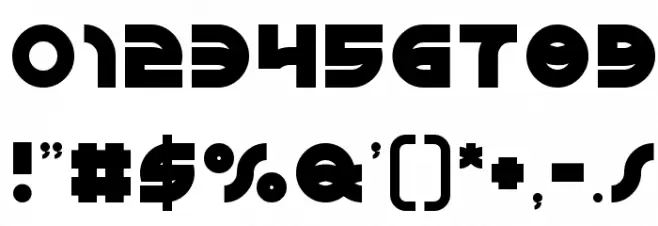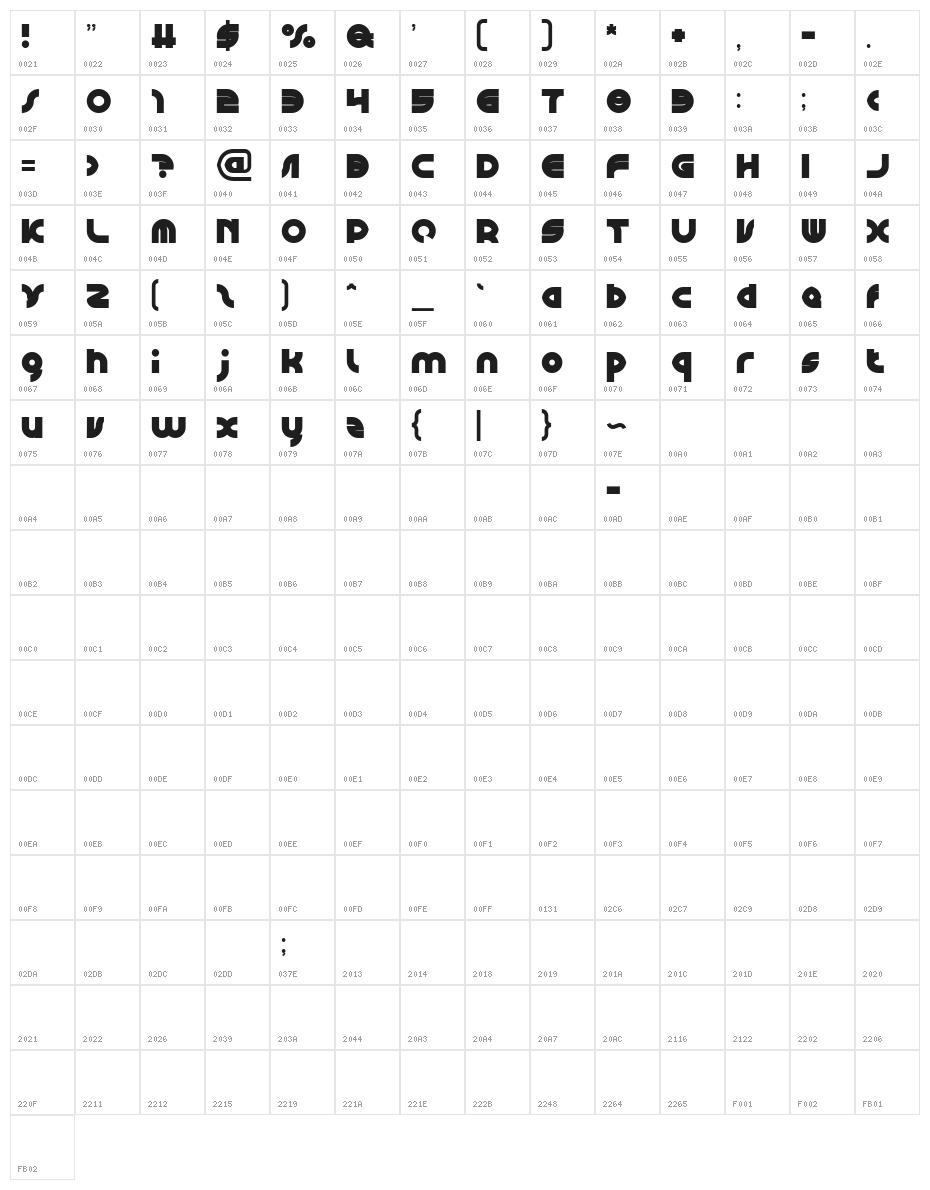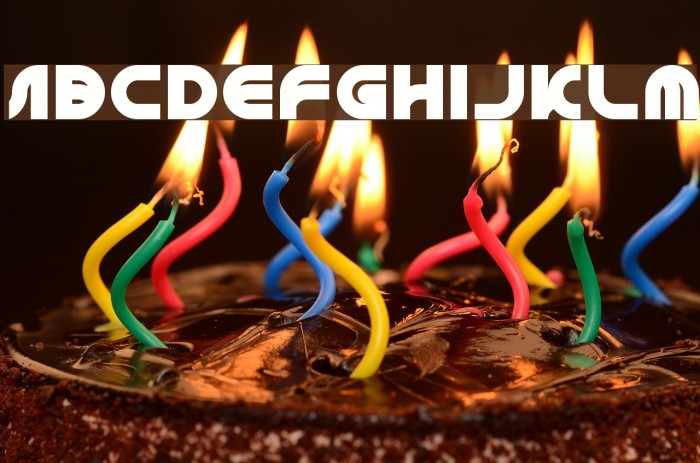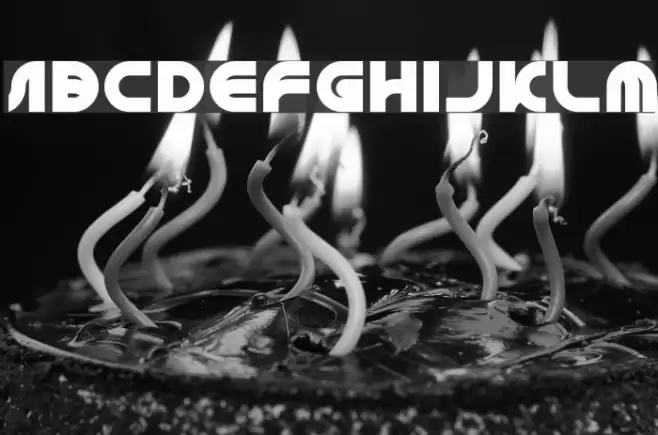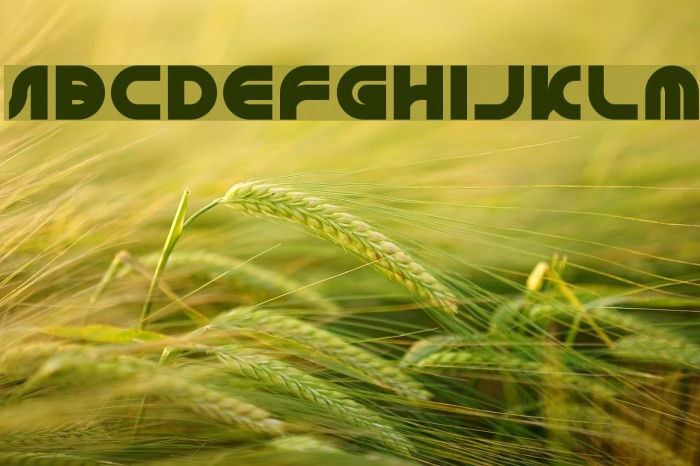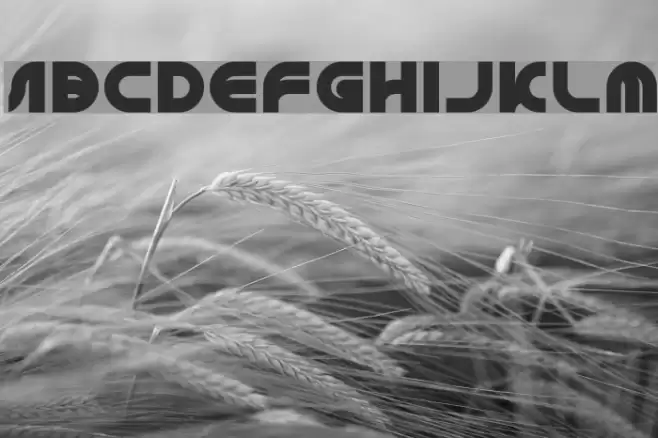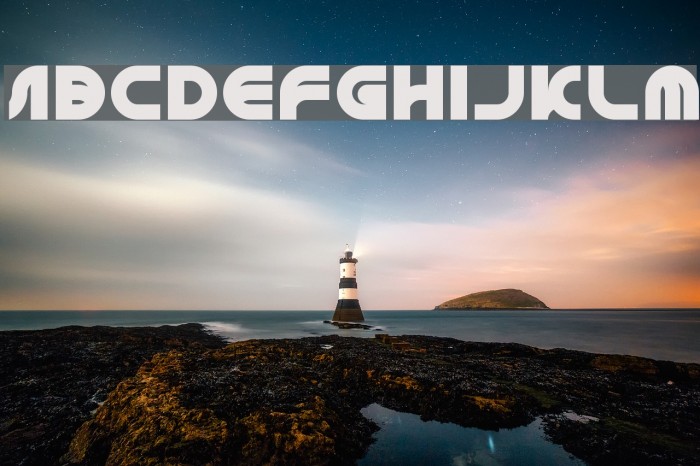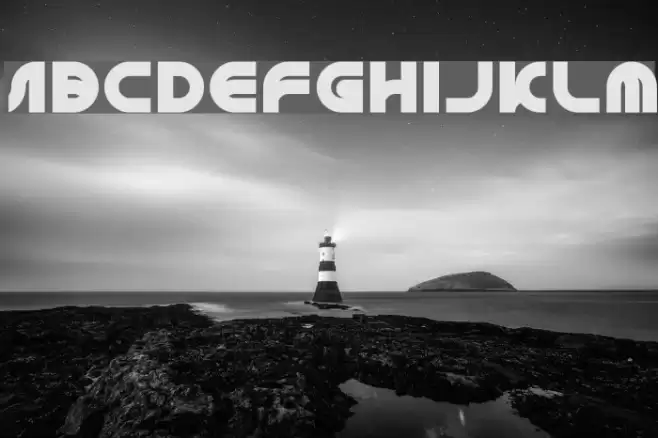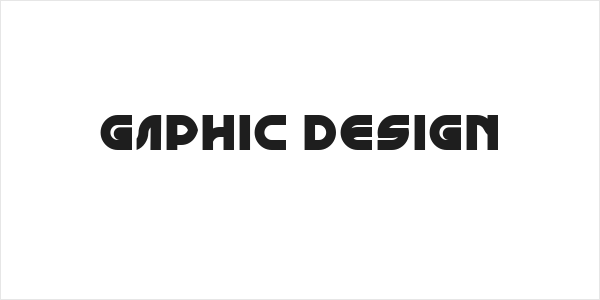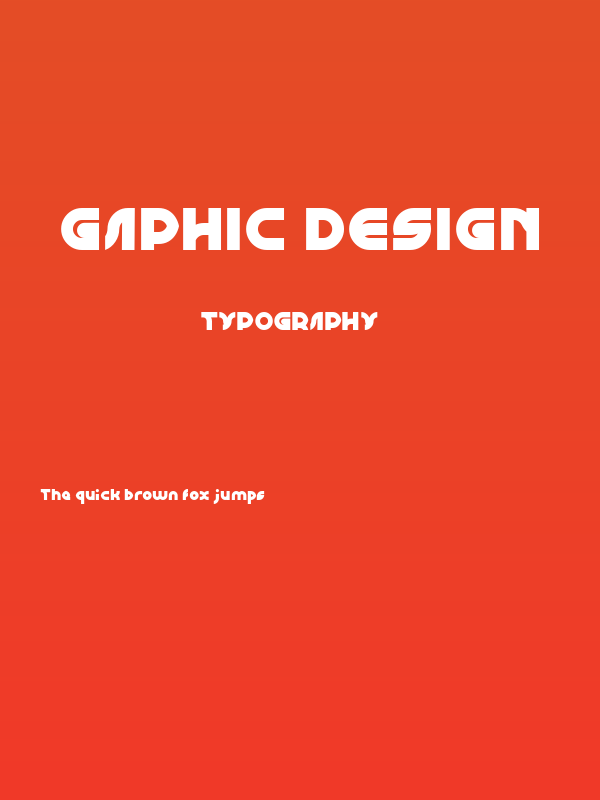
GAPHIC DESIGN Font
GAPHIC DESIGN Description
This font features a bold and geometric style with a futuristic flair. The characters are constructed with thick, uniform strokes, creating a strong visual impact. The design incorporates rounded edges and a consistent stroke width, giving it a modern and sleek appearance. The uppercase and lowercase letters maintain a cohesive look, while the numerals and special characters complement the overall aesthetic. This font's distinct style makes it suitable for attention-grabbing designs.
| Proposed Projects | Ideal for branding, posters, headlines, and digital media projects that require a strong visual presence. |